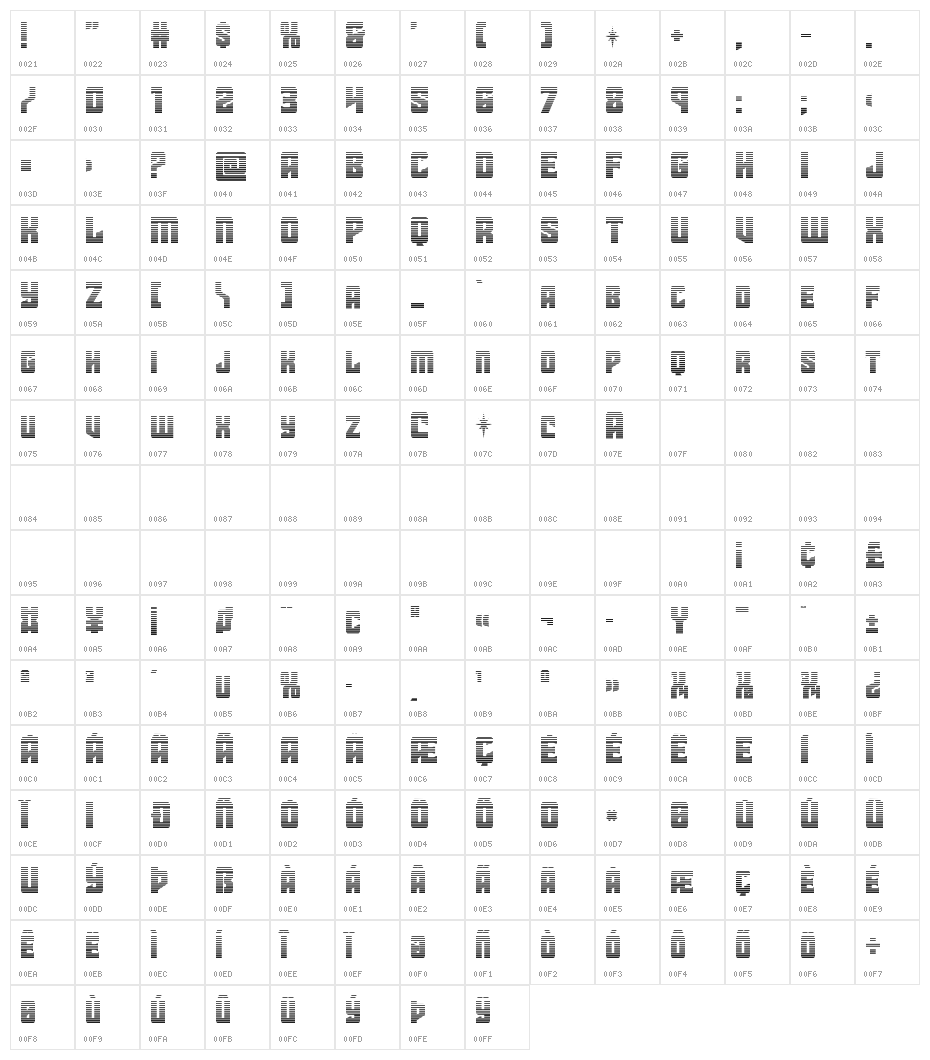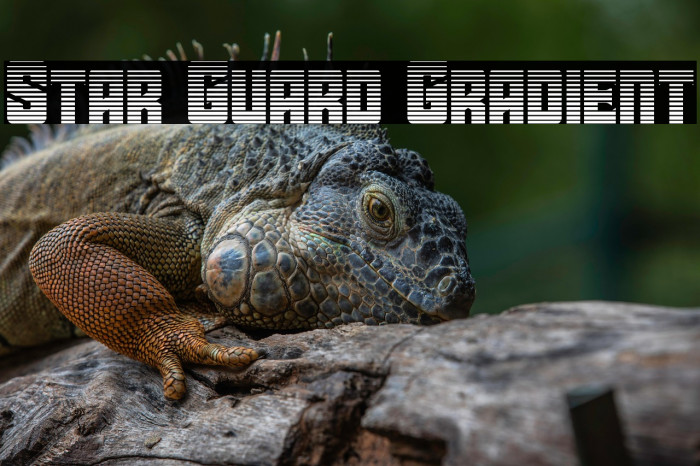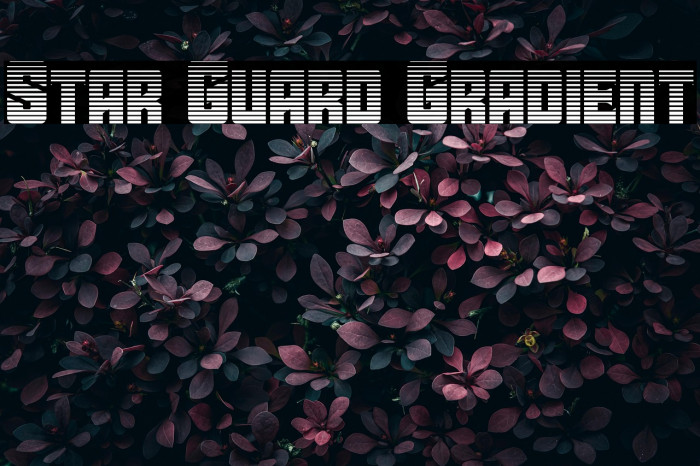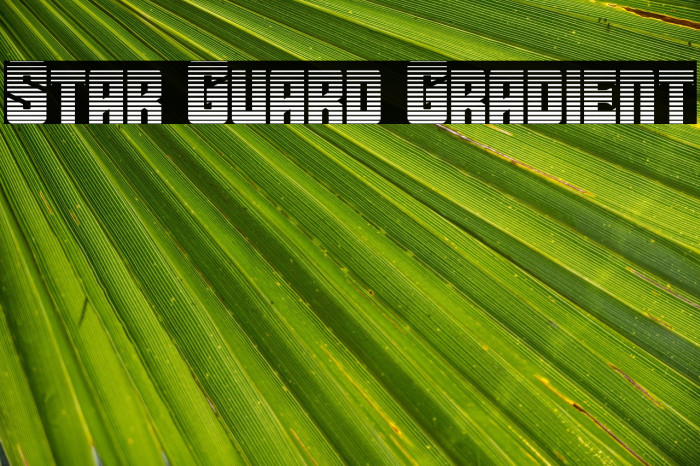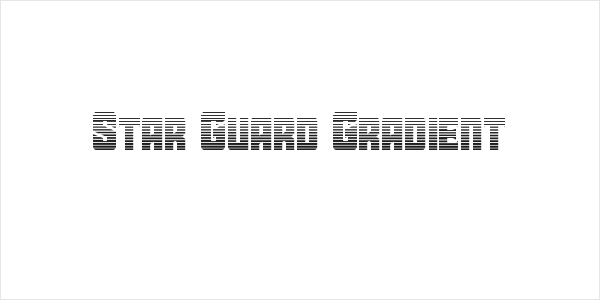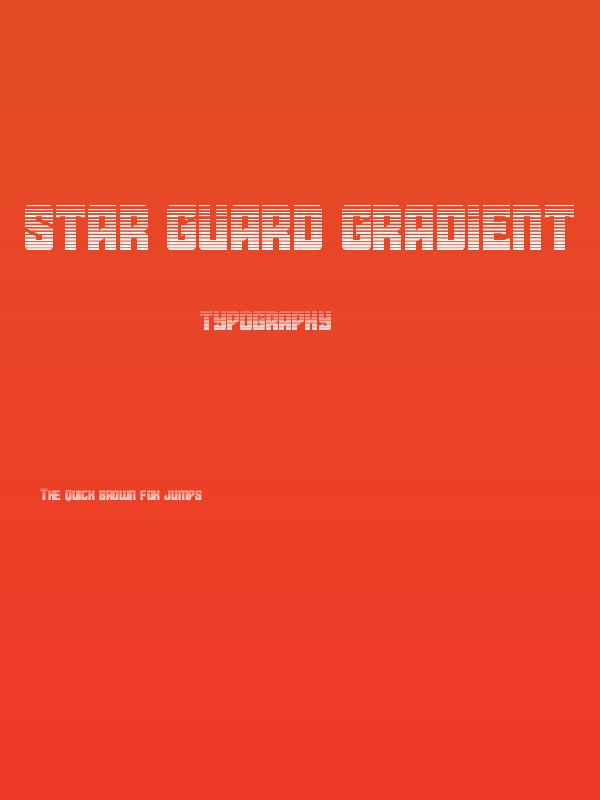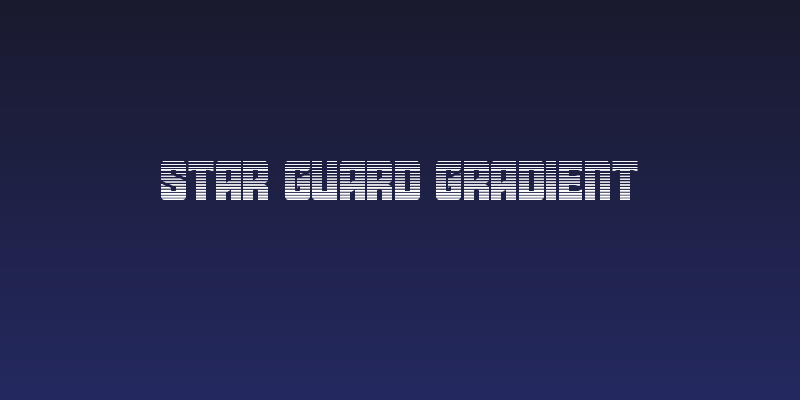
Star Guard Gradient Font
Star Guard Gradient Description
This font features a bold, futuristic design with a distinctive horizontal line pattern running through each character. The uppercase and lowercase letters maintain a consistent width, creating a uniform appearance. The numbers and special characters follow the same stylistic approach, ensuring cohesion across all elements. The font's unique gradient effect, achieved through the horizontal lines, gives it a dynamic and modern look, making it suitable for projects that require a strong visual impact. The overall design is clean yet striking, with a geometric structure that emphasizes its contemporary style.
| Proposed Projects | Ideal for sci-fi themed designs, video game titles, movie posters, and branding that requires a modern, edgy look. |